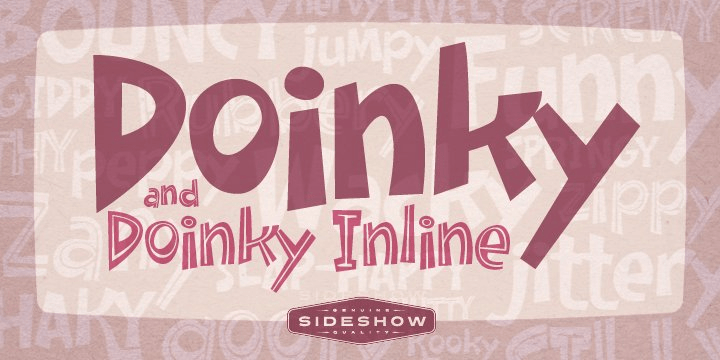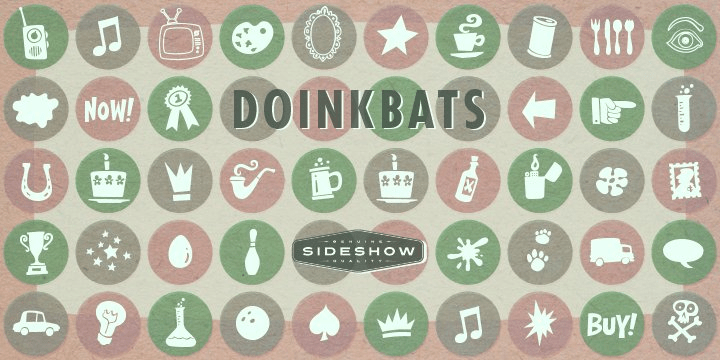
Doinky Family
Hey kids! What's wacky, bouncy, and jam-packed with excitement and thrills? It's DOINKY! That's right, you'll have bucket-loads of fun with this new OpenType font from Sideshow. Amaze your friends with tons of DOINKY ALTERNATES! Watch 'em drool over DOINKY INLINE! And they'll totally flip over your crazy collection of DOINKBATS! Yes, DOINKY will make you the envy of all your pals so order yours today! (Batteries not included. Sold separately or in the big action-packed Doinky Play Set!)